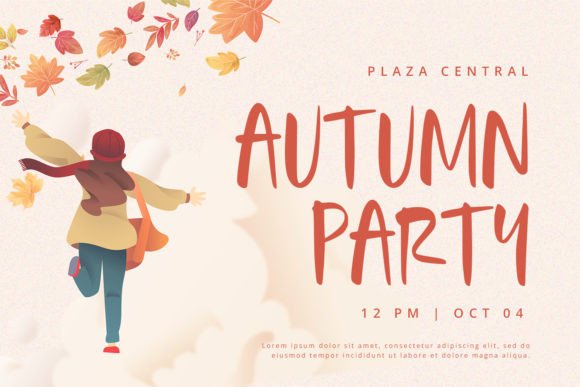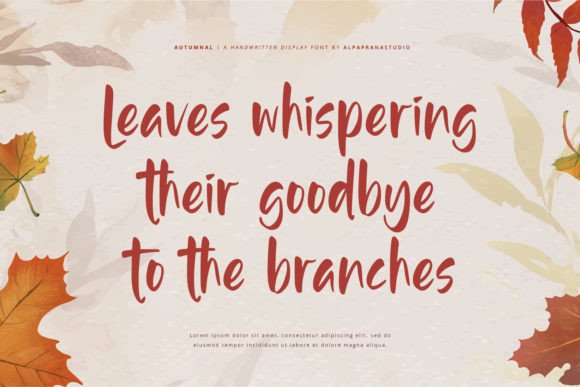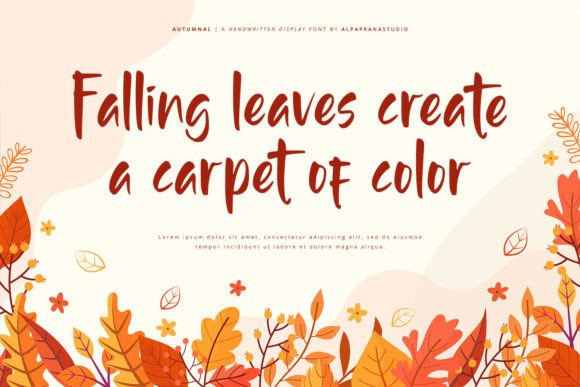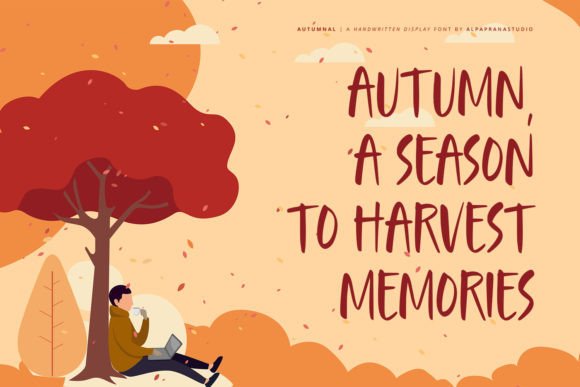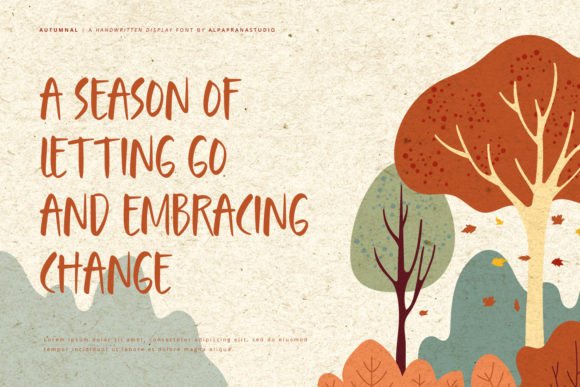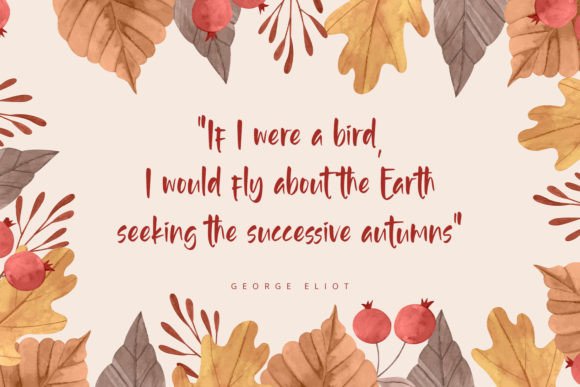
Introducing Autumnal Font: A Modern Handwritten Style for Your Design Projects
Are you a designer or crafter looking for a unique and modern handwritten font to elevate your brand, logo, or design project? Look no further than Autumnal Font, a stylish and versatile typeface that is perfect for a wide range of applications. In this article, we’ll explore the features and benefits of Autumnal Font, and show you how it can add a touch of sophistication and elegance to your designs.
What is Autumnal Font?
Autumnal Font is a beautifully crafted handwritten font with a modern feel. Its unique and elegant style makes it perfect for use in a variety of design projects, from branding and logo design to lettering, logotype, and more. With its clean lines and flowing curves, Autumnal Font is sure to add a touch of sophistication and elegance to any design.
Key Features of Autumnal Font
So, what makes Autumnal Font so special? Here are just a few of its key features:
• Uppercase & Lowercase Letters: Autumnal Font includes both uppercase and lowercase letters, making it perfect for use in a wide range of design projects.
• Numerals & Punctuations: The font also includes numerals and punctuations, making it easy to create professional-looking designs.
• Accents & Multilingual Characters: With Autumnal Font, you’ll get access to a wide range of accents and multilingual characters, making it perfect for use in international design projects.
• Ligatures and Alternative Style Stylistic Set: The font includes ligatures and alternative styles, giving you even more flexibility and creative control over your designs.
Use Cases for Autumnal Font
So, what can you use Autumnal Font for? The possibilities are endless, but here are a few ideas to get you started:
• Branding & Logo Design: Use Autumnal Font to create a unique and memorable brand identity that sets you apart from the competition.
• Lettering & Logotype: Create beautiful lettering and logotype designs that showcase your creativity and style.
• Clothing & Fashion: Use Autumnal Font to create stylish and eye-catching designs for clothing, accessories, and more.
• Posters & Magazine Covers: Add a touch of elegance and sophistication to your posters and magazine covers with Autumnal Font.
• Packaging & Shopping Bags: Use Autumnal Font to create eye-catching and memorable packaging designs that stand out on store shelves.
• T-Shirts & Apparel: Create stylish and unique designs for t-shirts and other apparel with Autumnal Font.
• Book Covers & Photography: Use Autumnal Font to add a touch of elegance and sophistication to your book covers and photography projects.
• Special Events: Create beautiful and memorable designs for special events, such as weddings, parties, and more.
Why Choose Autumnal Font?
So, why should you choose Autumnal Font for your design projects? Here are just a few reasons:
• Unique & Modern Style: Autumnal Font has a unique and modern style that will set your designs apart from the competition.
• Highly Versatile: The font is highly versatile, making it perfect for use in a wide range of design projects.
In conclusion, Autumnal Font is a beautiful and versatile handwritten font that is perfect for a wide range of design projects. With its unique and modern style, highly versatile design, and ease of use, it’s the perfect choice for designers and crafters looking to add a touch of sophistication and elegance to their designs. So why wait? Download Autumnal Font today and start creating stunning designs that will leave a lasting impression!